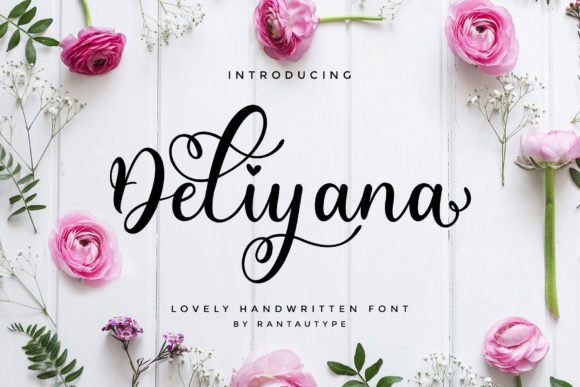
The Perfect Font for Your Next Design Project
Have you ever stumbled upon a font that makes you feel like you’re walking on clouds? For me, that moment came when I first laid eyes on the Deliyana Font. Its romantic and elegant script style is the perfect addition to any design project, whether it’s a wedding invitation, a fashion brand’s logo, or a beautiful piece of art.
The Deliyana Font is more than just a pretty face – it’s also PUA encoded, making it easy to access all of its beautiful glyphs and swashes. This means you can add an extra touch of personality to your designs without any hassle. Whether you’re a seasoned designer or just starting out, the Deliyana Font is a valuable addition to your toolkit.
Deliyana Font Key Features
- Font Style: Deliyana is a unique, hand-drawn font with a whimsical and elegant touch.
- Character Set: Includes a wide range of characters, including uppercase and lowercase letters, numbers, and punctuation marks.
- Unique Characteristics: Features intricate details, flourishes, and ornaments, making it ideal for creating visually striking designs.
Deliyana Font Review
I’ve had the chance to work with Deliyana Font, and here’s my honest take on it. ✨
- Unique and elegant design: Deliyana Font has a distinctive flair that sets it apart from more common fonts.
- Good for headings: Its bold and eye-catching nature makes it perfect for titles and headings.
- Works well in digital formats: I’ve found it to be highly legible on various screens and devices.
- ⚠️ Limited font sizes: I’ve noticed that the font can become difficult to read when scaled up or down.
- ⚠️ Limited language support: Deliyana Font seems to be primarily designed for English language use, which might be a limitation for multilingual projects.
While Deliyana Font has its limitations, it’s a beautiful and stylish choice for certain projects. If you’re looking for a unique font to add some flair to your headings or titles, Deliyana Font is definitely worth considering. However, be mindful of its limitations, especially when it comes to font sizes and language support.
Some tips to get the most out of the Deliyana font include:
- Use it for titles and headings to add a touch of elegance.
- Pair it with a sans-serif font for a balanced look.